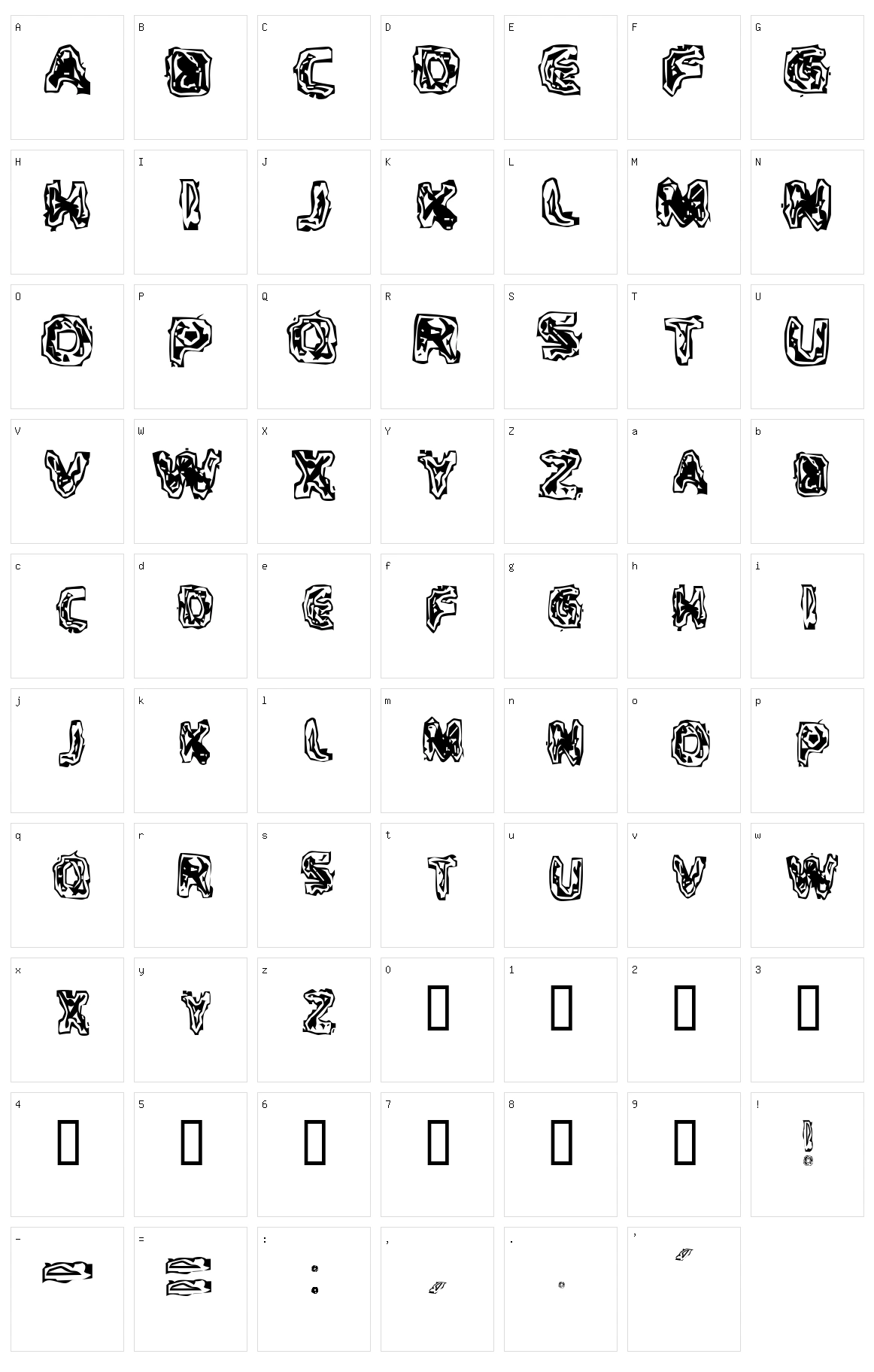
The free font Critical Maas is carefully designed by Toxic Type, showcasing a thoughtful balance of creativity and usability and falls under the Destroy font style. When you download the ZIP file, it contains only 30.91 KB of font files, making it lightweight and quick to download. Please review the license details below to understand permitted usage and distribution rights. If license information is not available, we recommend using this font for personal projects only or contacting the author directly for commercial usage permissions.